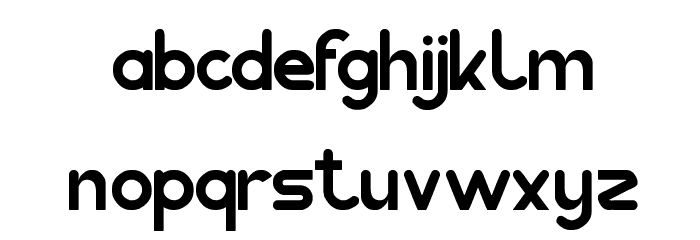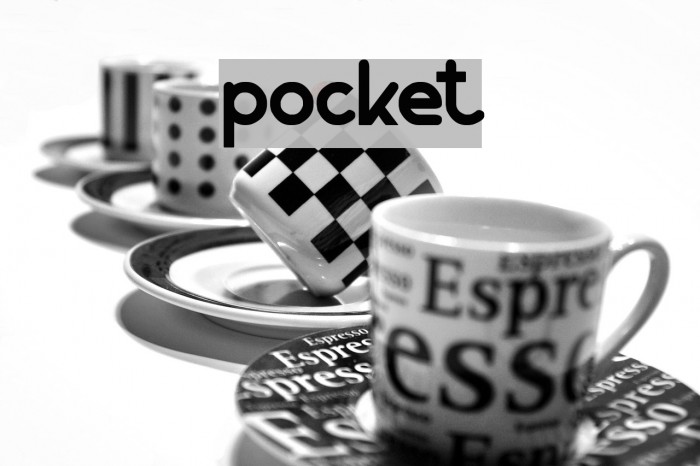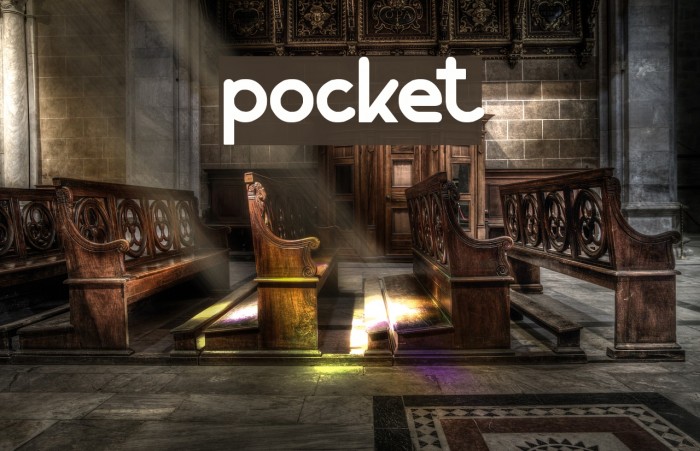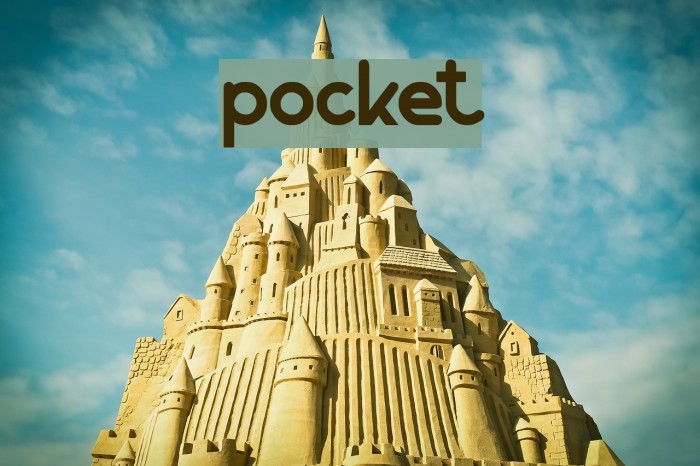
pocket Font
This font features a playful and rounded style, characterized by its smooth curves and consistent stroke width. The uppercase letters are bold and prominent, while the lowercase letters maintain a friendly and approachable appearance. The overall design is clean and modern, with a slight retro touch that adds to its charm. The numerals and special characters are well-integrated, maintaining the font's cohesive look. Its simplicity and readability make it suitable for various design projects.
A playful, rounded font with a modern and slightly retro style.
- Proposed Projects: Ideal for children's books, playful branding, posters, and social media graphics.
- Overall Style: Modern, Retro